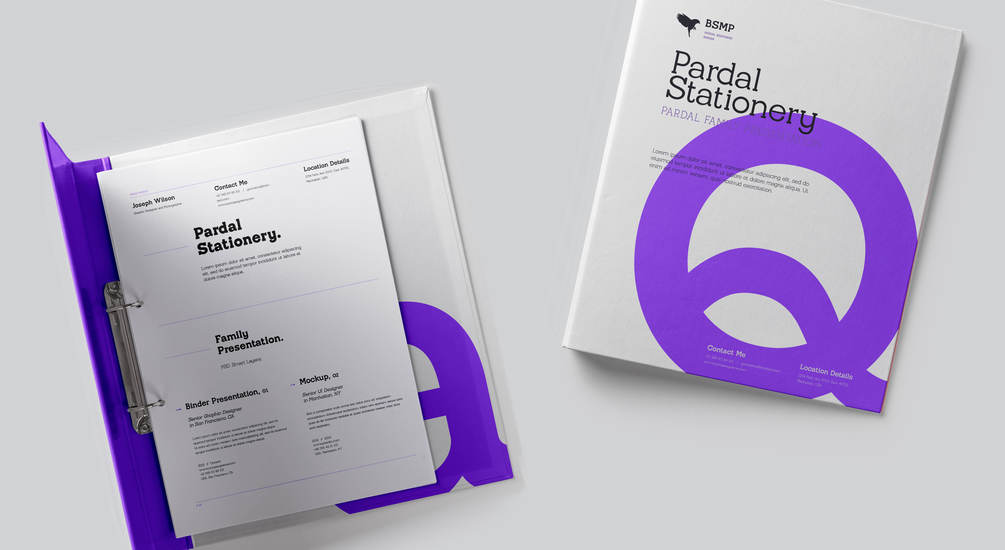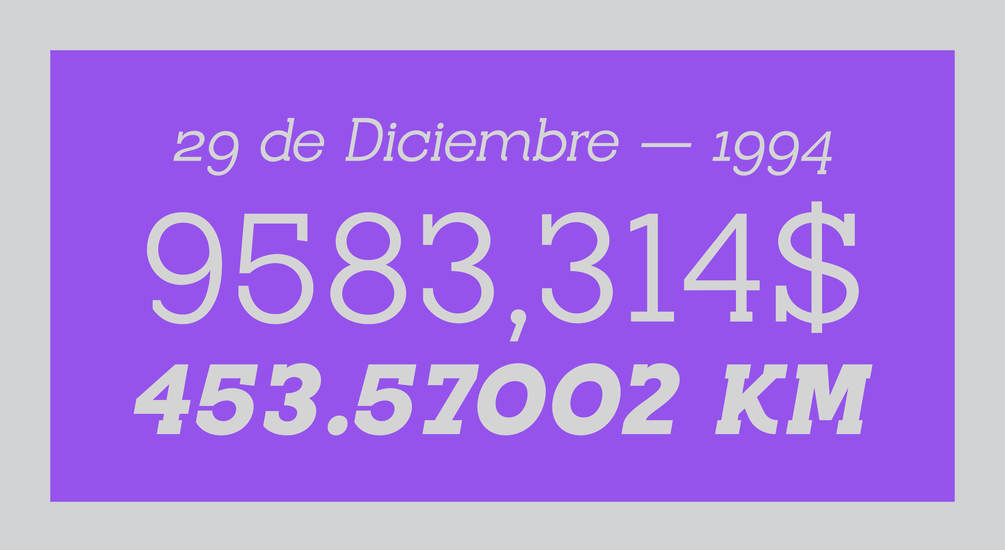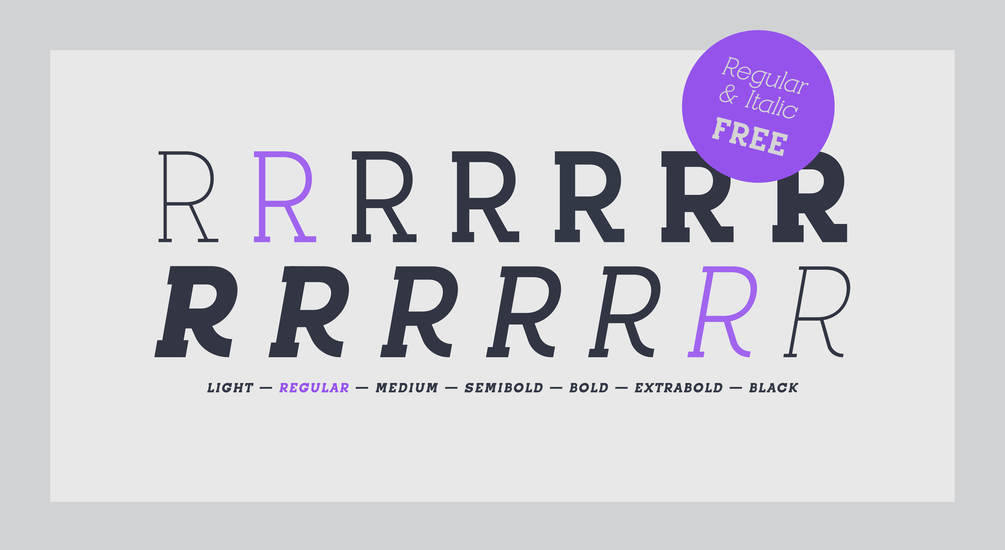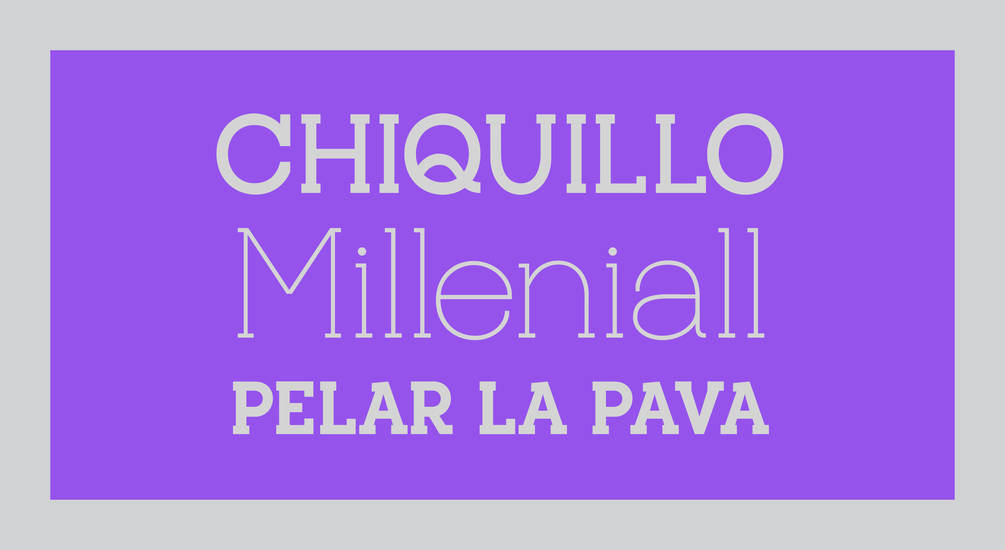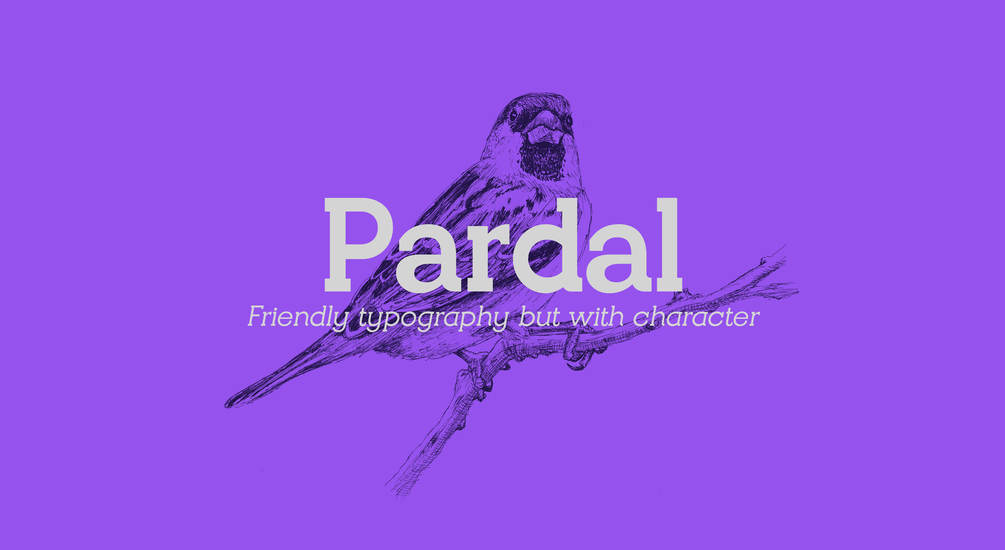
Pardal Font Family
Pardal Font Family – Free Demo
Dear Font Lovers! It is a new font family, with 7 weights. Introducing Pardal Typeface! It is designed and shared by bydani. Pardal is a powerfull slab serif in 7 weights plus matching italics. The inspiration for the design came trough translate my grandfather’s main adjectives in a font, as a result, Pardal combines strong serifs and clean lines with slight curves, bringing it an aspect more humanist and friendly.
The family comes in 7 weights plus matching italics, featuring opentype features like discretionary ligatures, case sensitive shapes, tabular numbers and many more. Pardal functions great in many sizes and surroundings, working good in long paragraphs, display, or in powerful headlines.